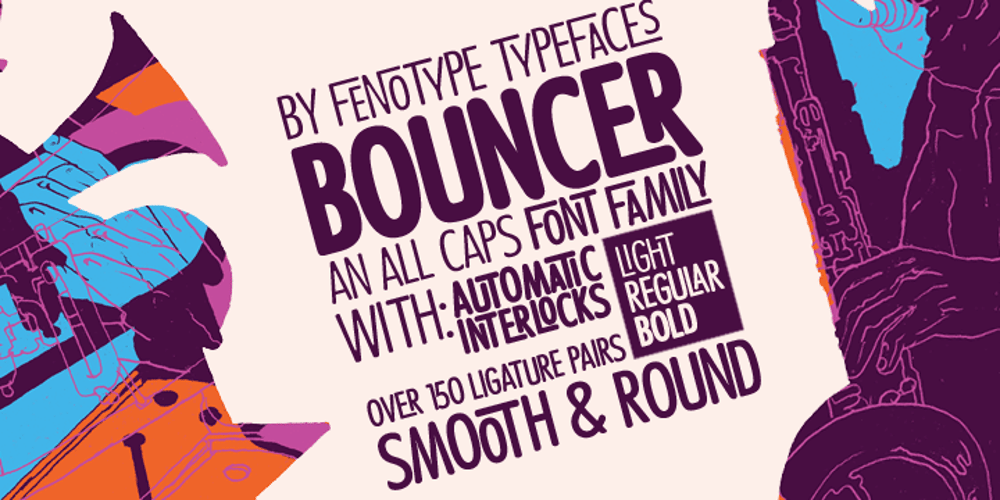
Bouncer
Bouncer font
Bouncer Font Family was designed by Emil Karl Bertell and published by Fenotype. Bouncer contains 3 styles and family package options. Bouncer is an all-caps font family with automatic interlocks. With soft and rounded look and over 150 automatic ligatures and three weights Bouncer is a flexible and easy to use font. It’s very suitable for anything from a Jazz poster to a restaurant menu. To access the ligatures you only need to write in CAPS in any OpenType-supporting application.